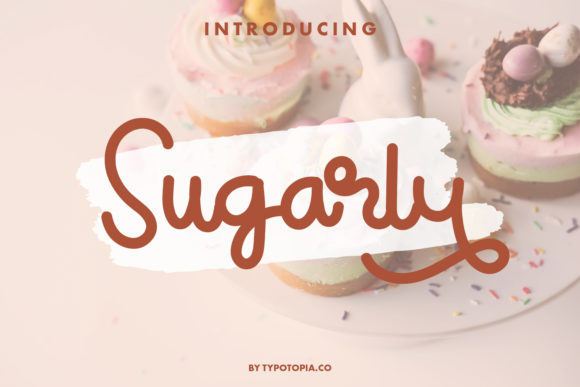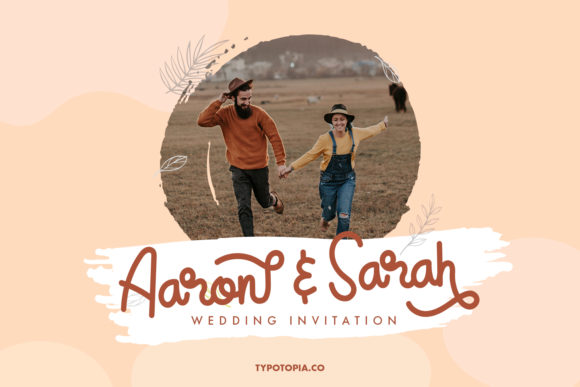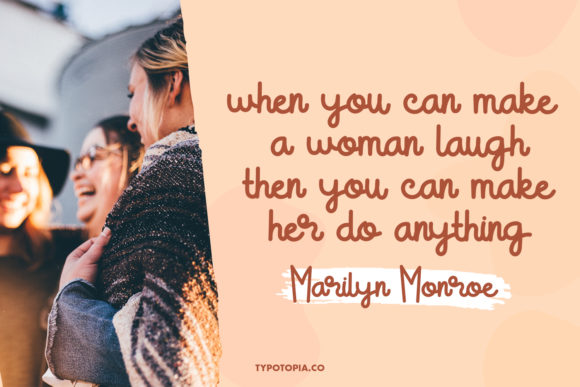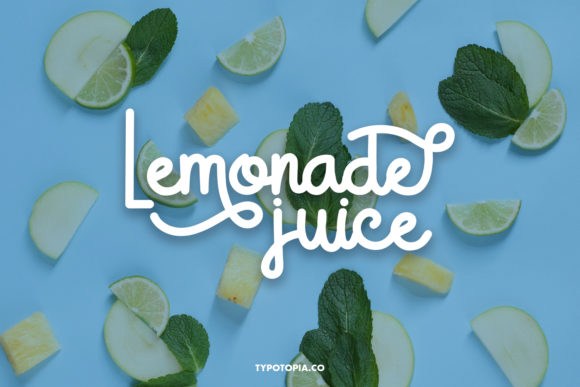
Sugarly Font
About Sugarly Font
Sugarly is a sweet and dainty handwritten font. Whether you’re looking for fonts for Instagram or calligraphy scripts for DIY projects, this font will turn any creative idea into a true piece of art!